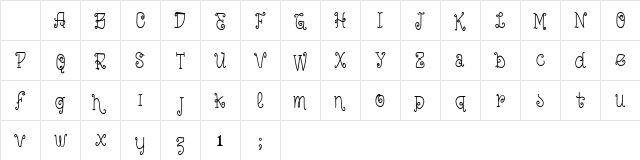
Complete Vtks Love is EveryThing Regular glyph index. Displaying only characters natively supported by Vtks Love is EveryThing Regular font.
Vtks Love is EveryThing is a composed and adaptable typeface that performs quietly and consistently across a wide range of design contexts. Its slender proportions lend an understated elegance to any composition.